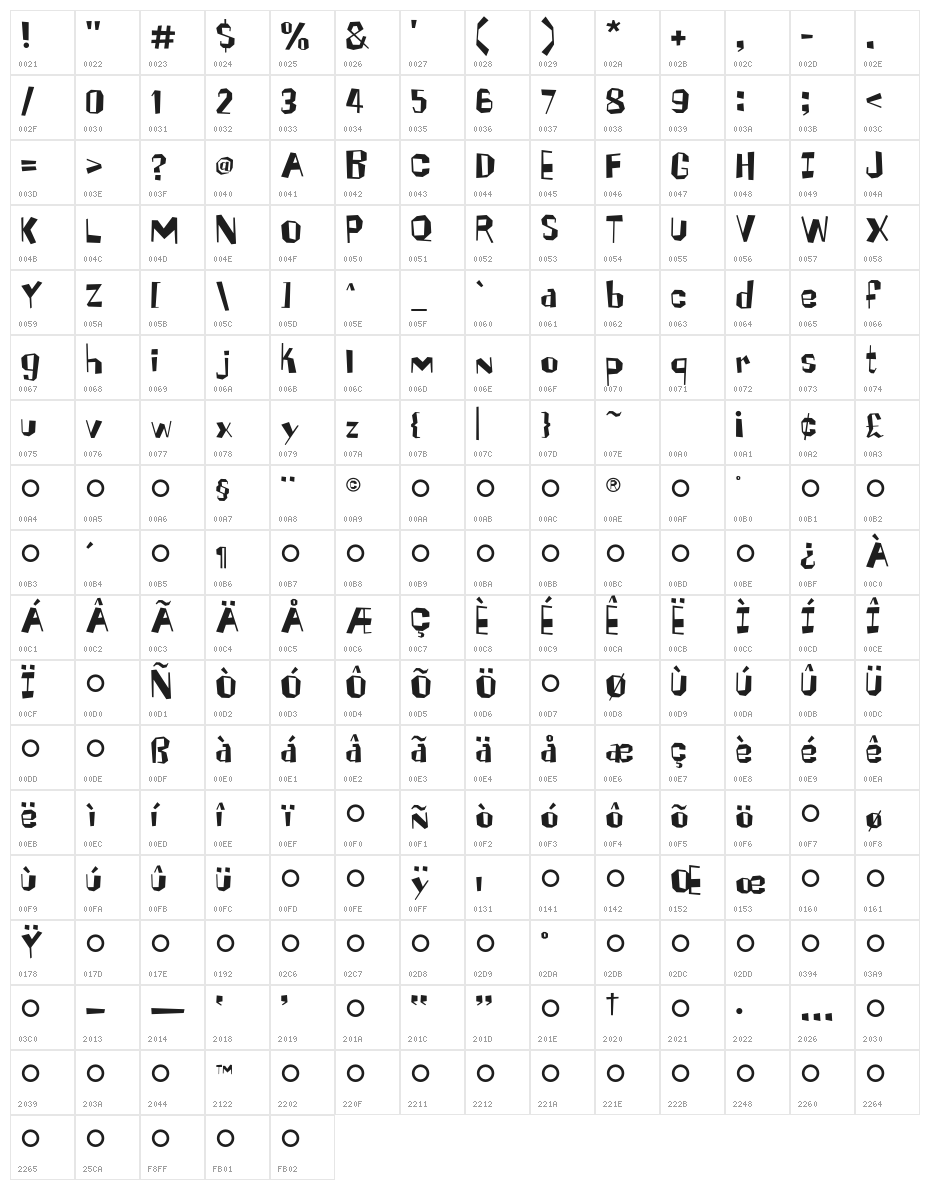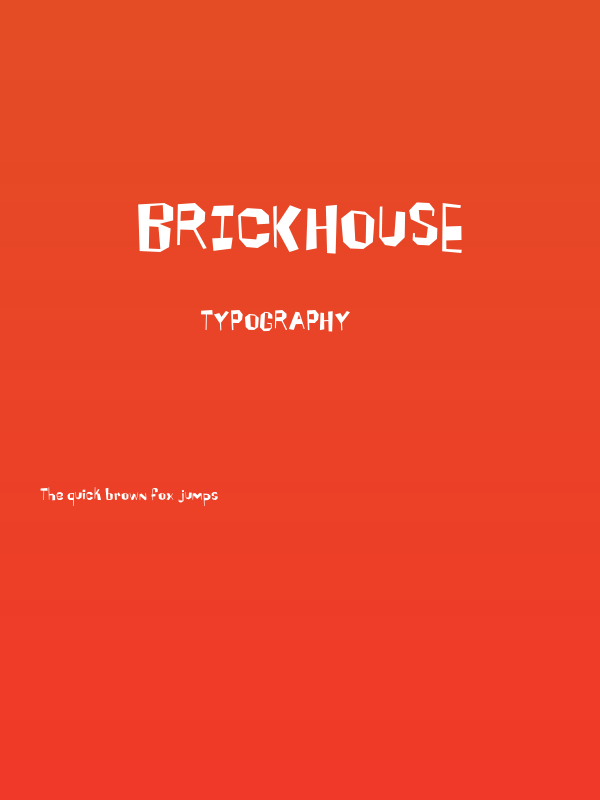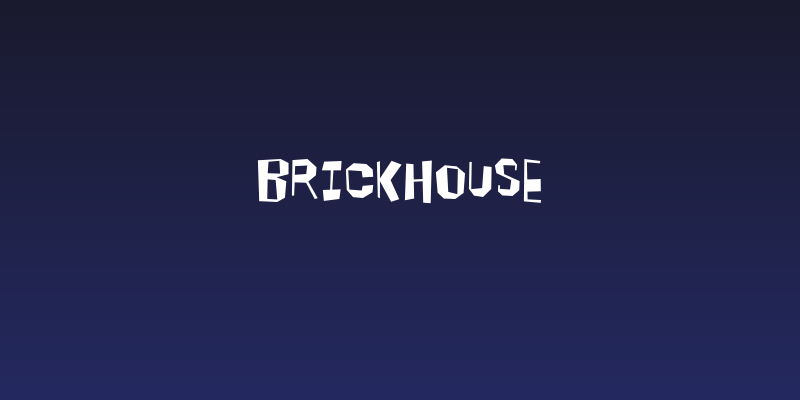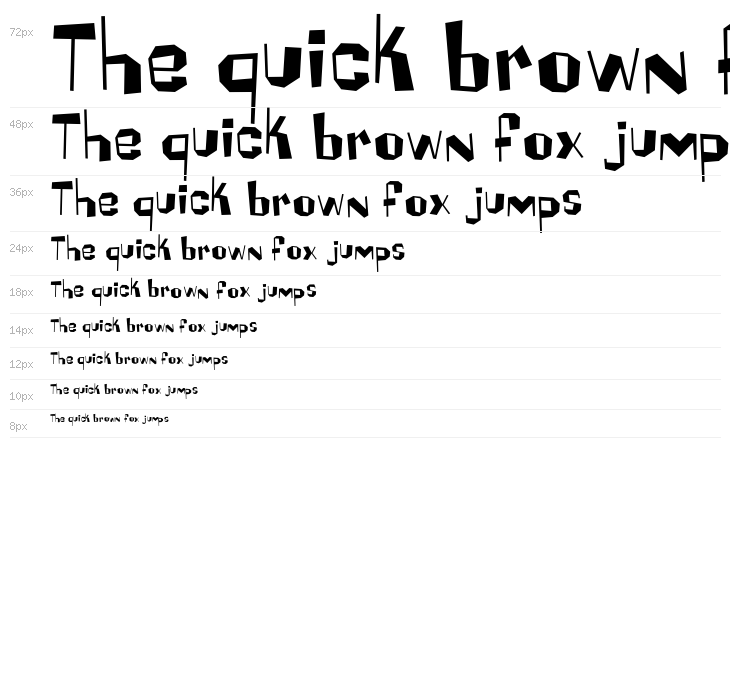
Brickhouse Font
Brickhouse Description
This font features a bold and angular design, with each character displaying a unique, jagged appearance that resembles cut-out shapes. The uppercase and lowercase letters maintain a consistent geometric style, creating a sense of cohesion despite their irregular forms. The numbers and special characters follow the same aesthetic, contributing to the font's overall edgy and modern look. The thick strokes and sharp angles give it a strong presence, making it suitable for attention-grabbing headlines or artistic projects. Its distinctive style is both playful and assertive, ideal for creative designs that require a bold statement.
| Proposed Projects | Ideal for posters, album covers, branding, and any project needing a bold, artistic touch. |